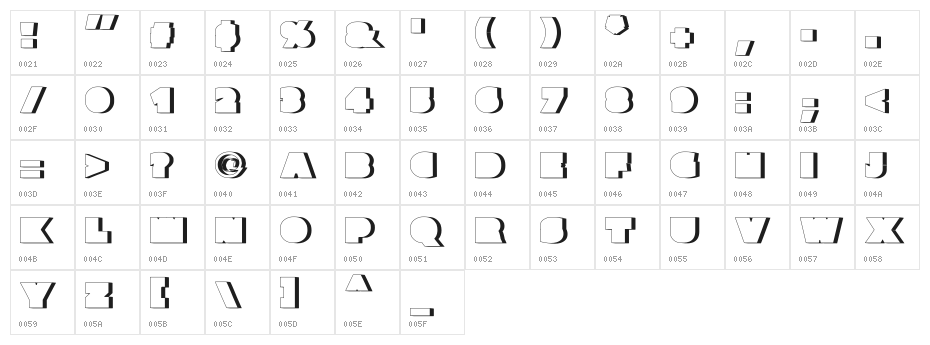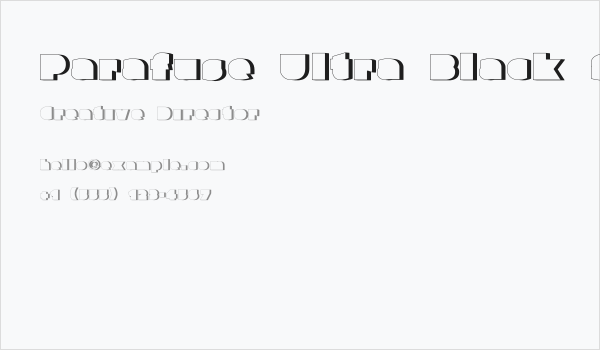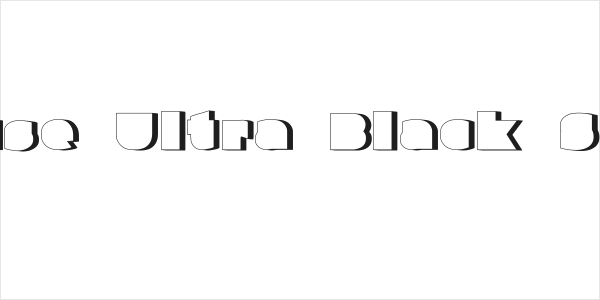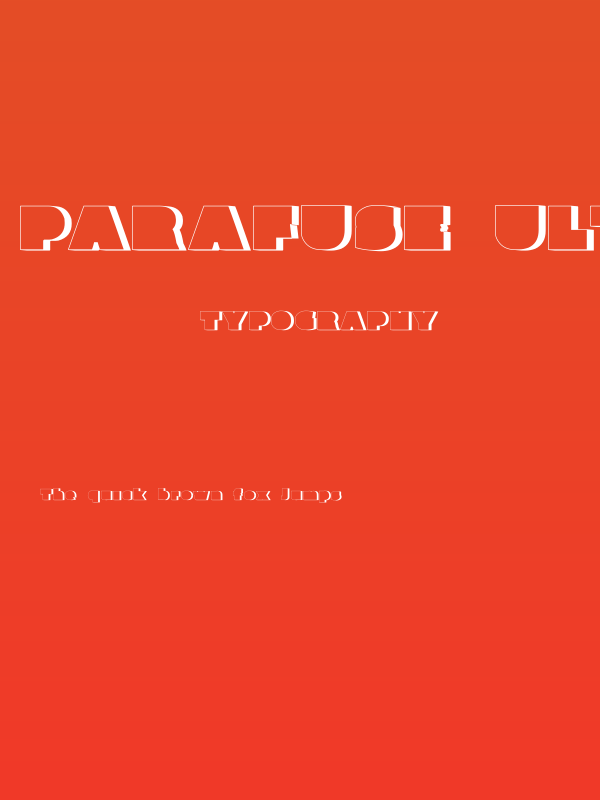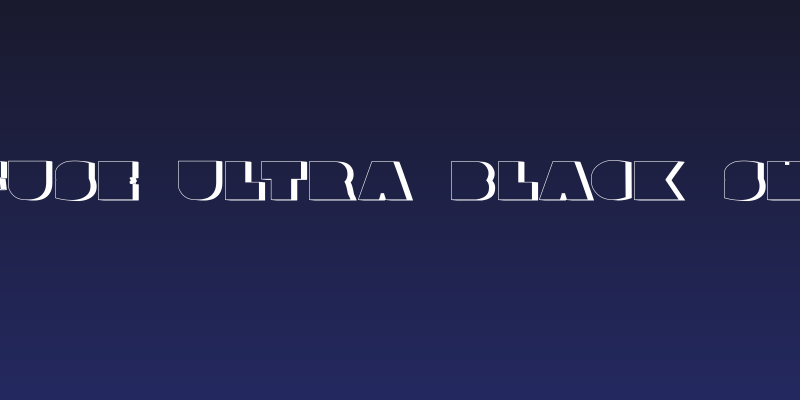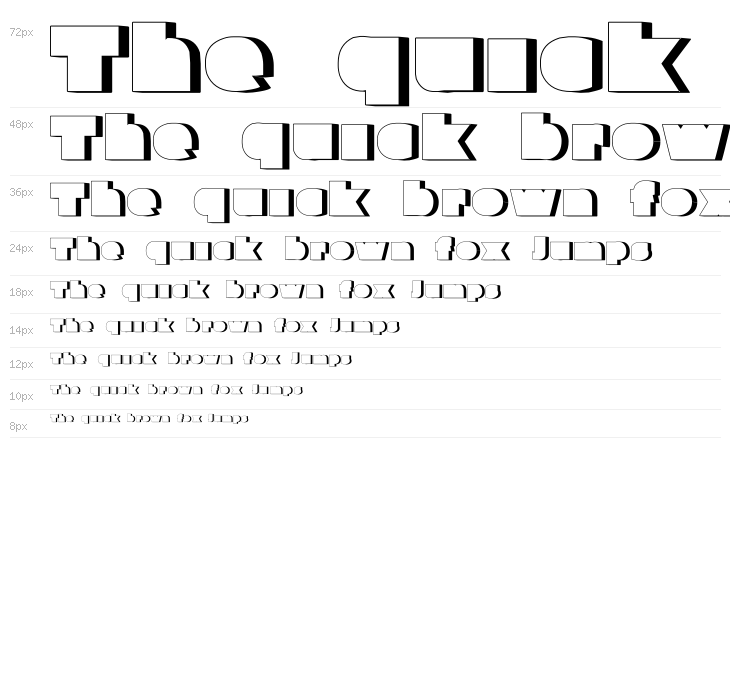
Parafuse Ultra Black Shadow Font
Parafuse Ultra Black Shadow Description
This font features a bold and striking design with a shadow effect that adds depth and dimension to each character. The geometric shapes and clean lines give it a modern and futuristic appearance. The uppercase and lowercase letters maintain a consistent style, while the numbers and special characters complement the overall aesthetic. The shadow effect is prominent, creating a sense of movement and dynamism. This font is ideal for projects that require a strong visual impact, such as posters, headlines, and branding materials.
Proposed ProjectsIdeal for posters, headlines, branding, and any project needing a bold visual impact.